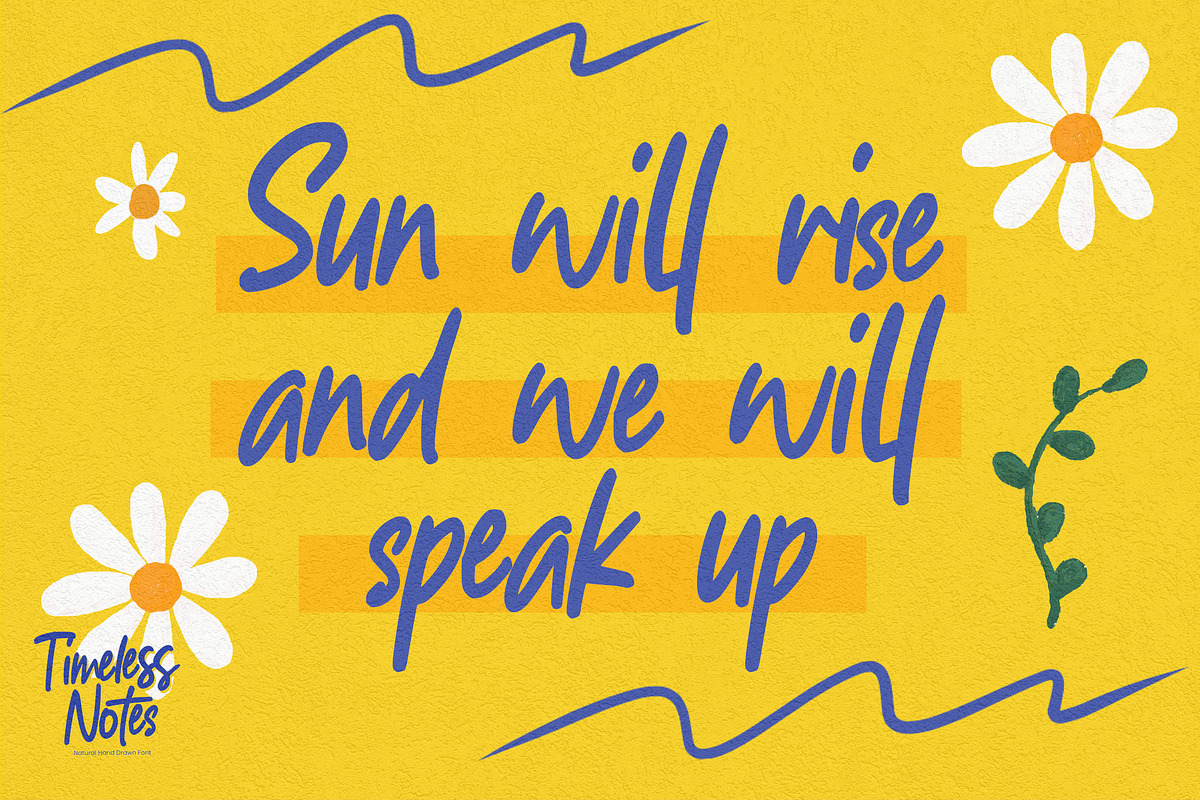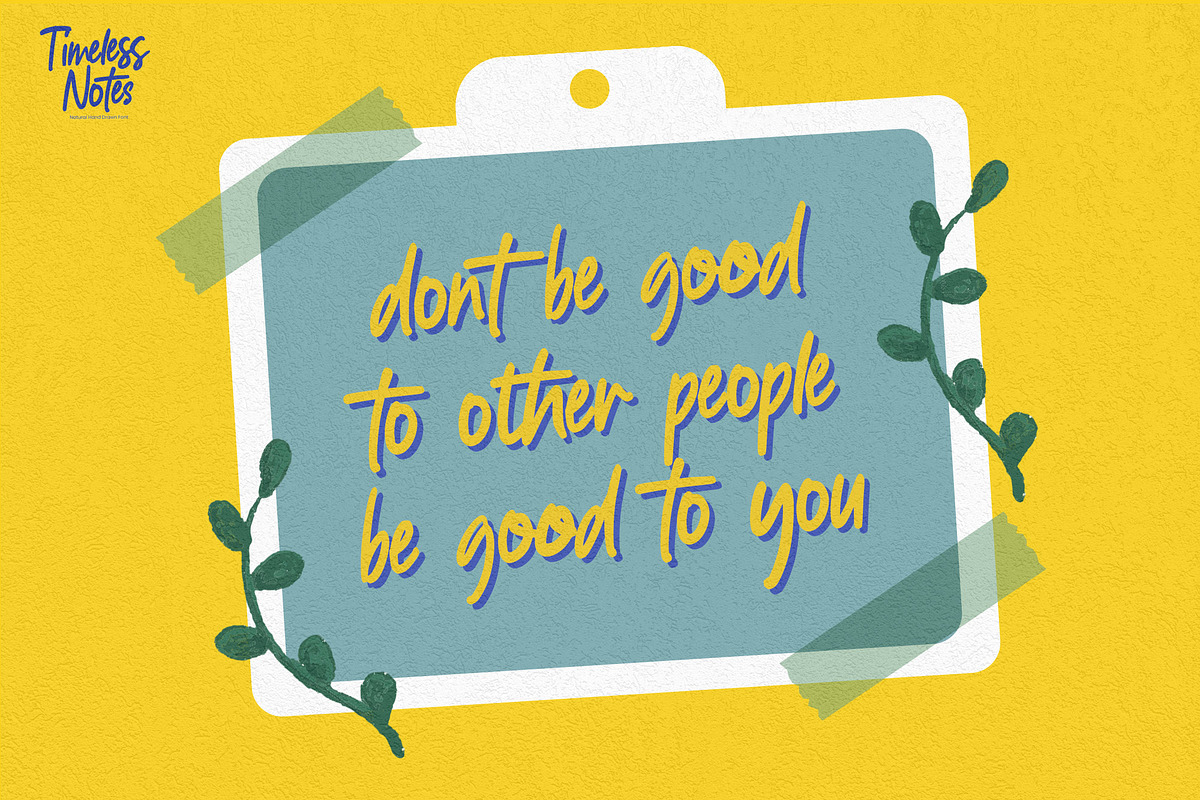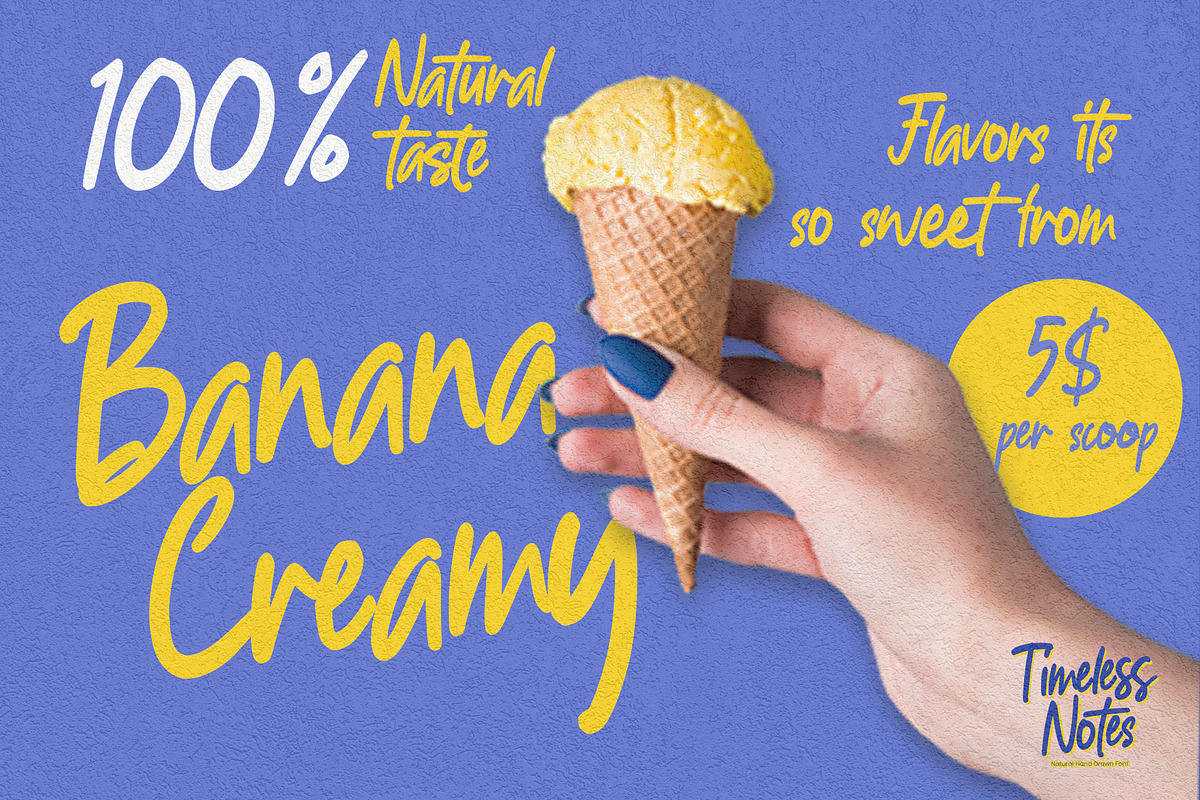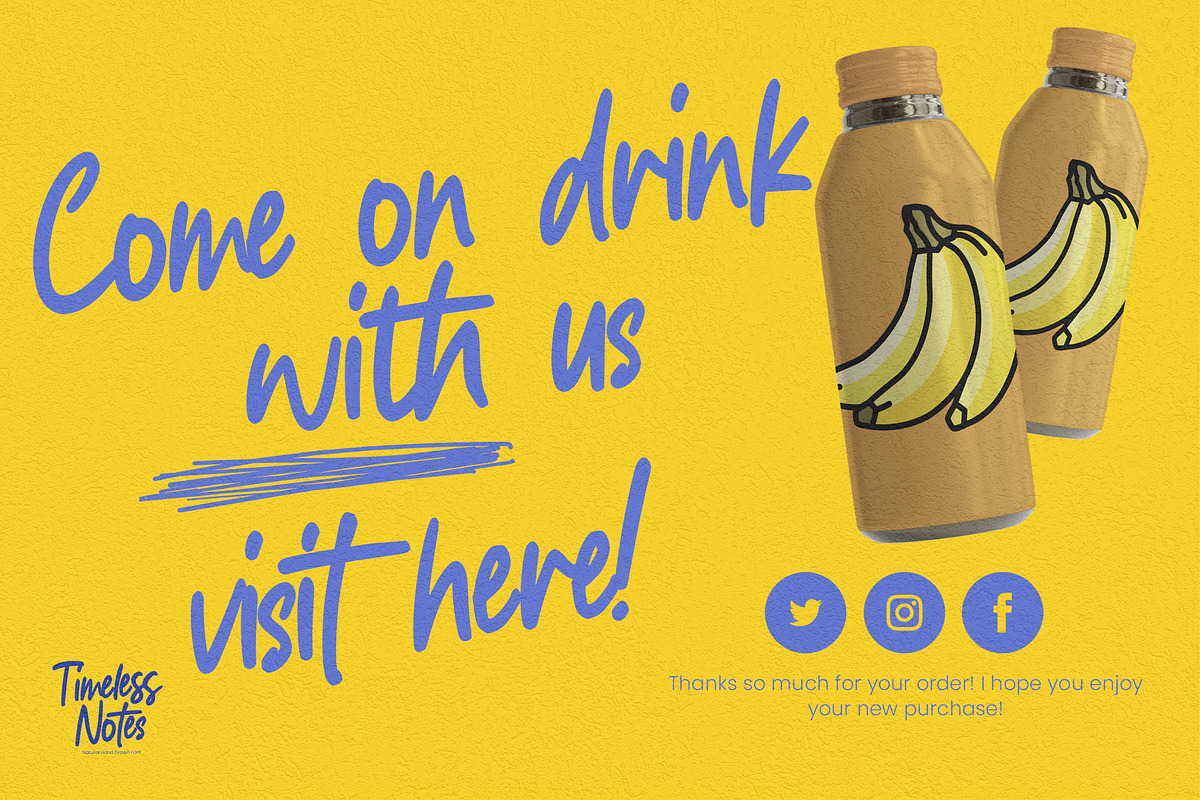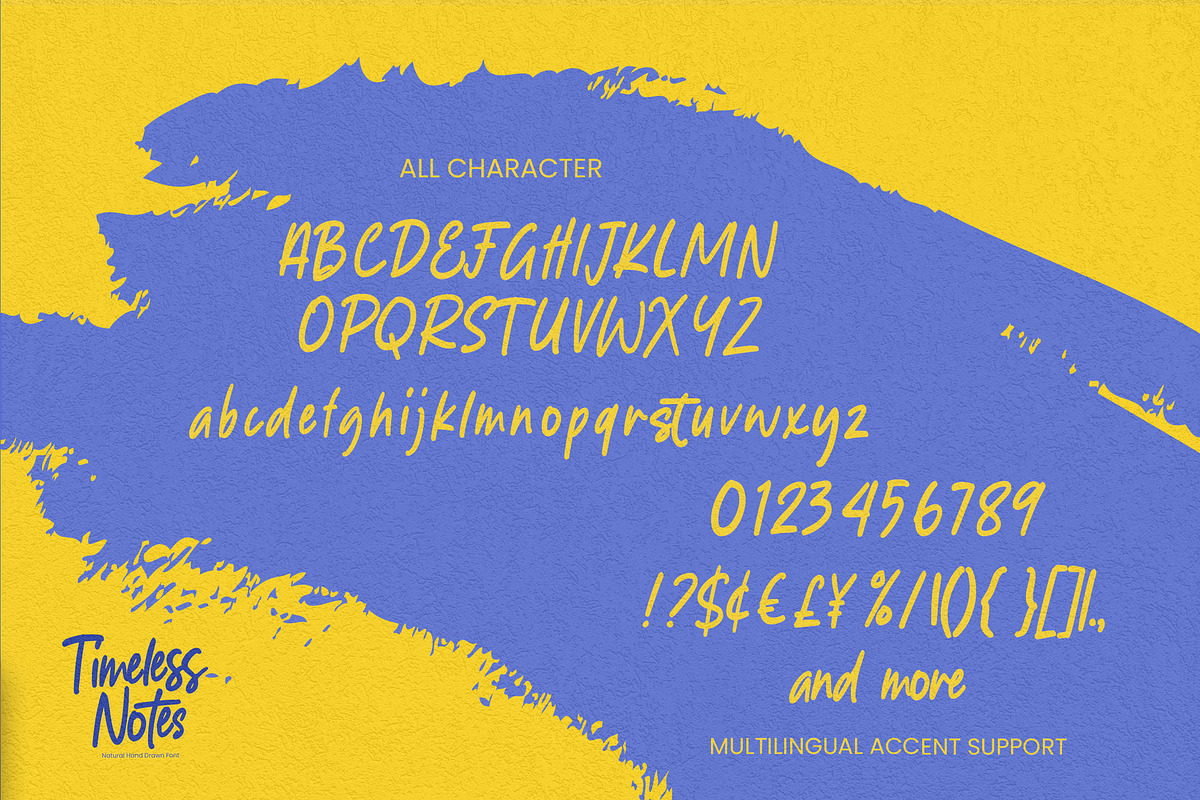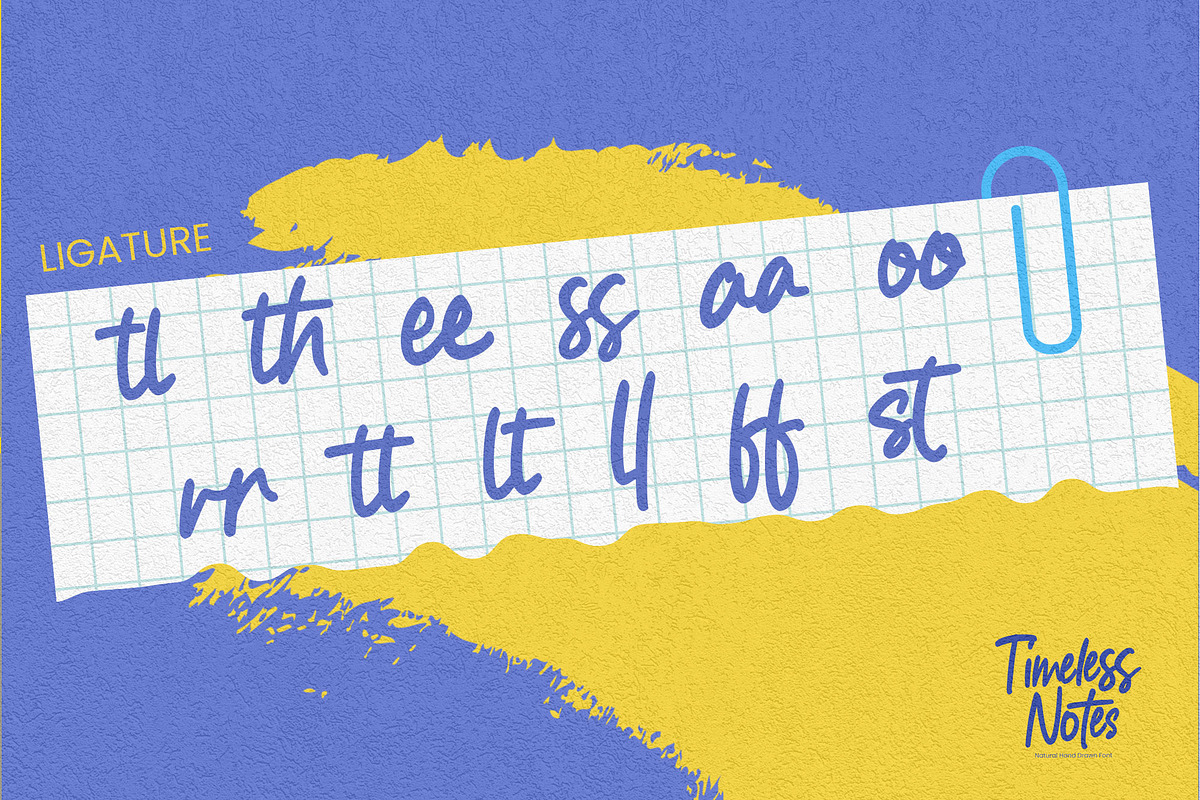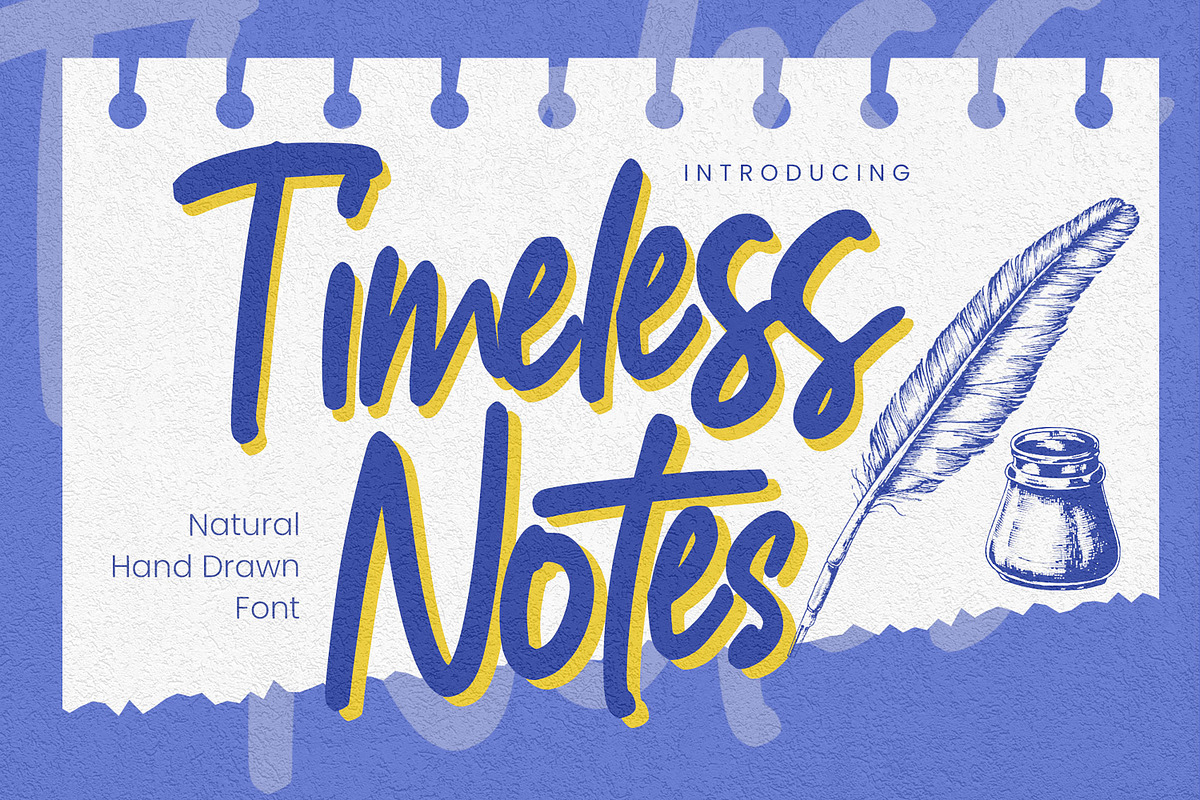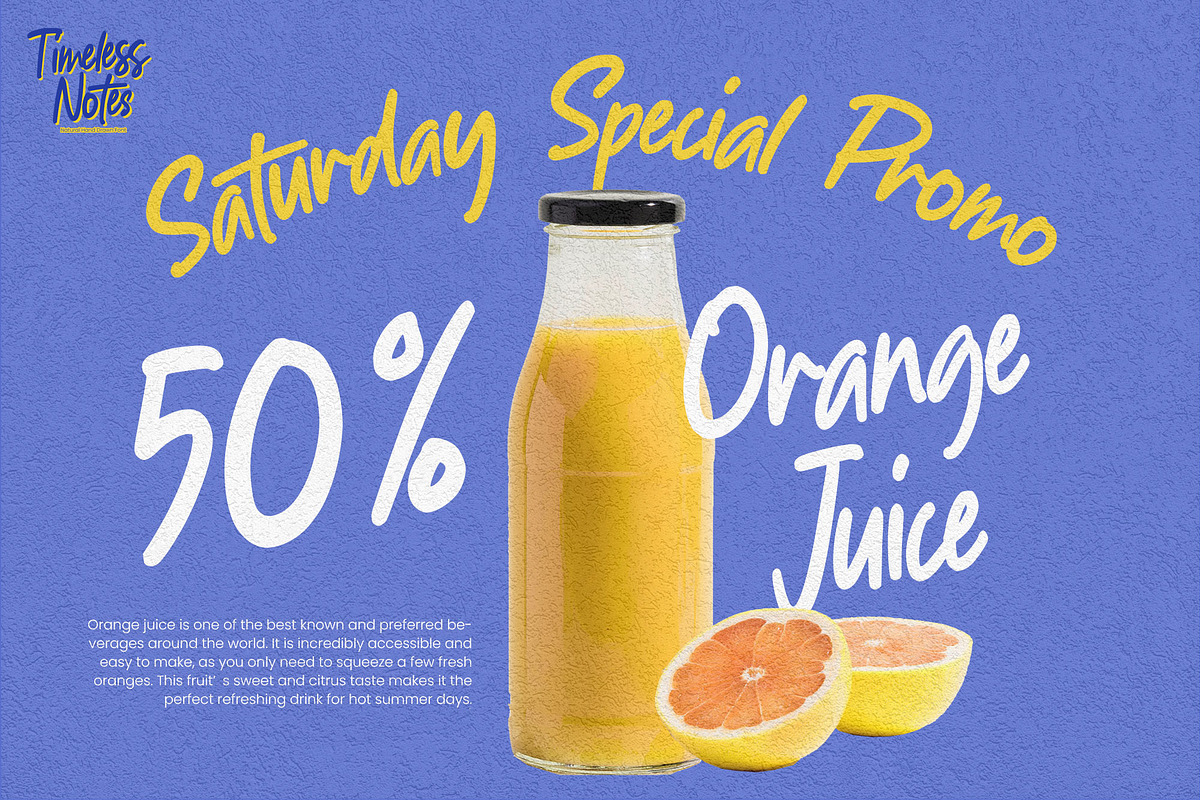
Timeless Notes - Natural Hand Drawn
Here comes a New font,Introducing Timeless Notes is a Natural Hand Drawn Font with a natural style and dramatic movement.is a Authentic Font that is written casually and quickly. Every glyphs are made with Procreate. Then trace down into a vector format, and carefully crafted into a typeface. That is why Timeless Notes has cool,modern,authentic and strong characteristic more natural look. You can activate Ligature OpenType panel,
Timeless Notes Perfect for designs,branding projects, Logo design, Quotes product packaging and another Project thet require cool strong brush font. Crafted manually with love and passion, This font is great for your next creative project such as logos, printed quotes, invitations, cards, product packaging, headers, Logotype, Letterhead, Poster, Label, and etc.
- Ligature glyphs